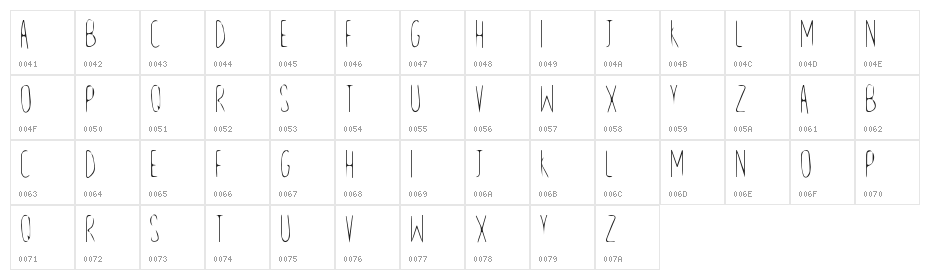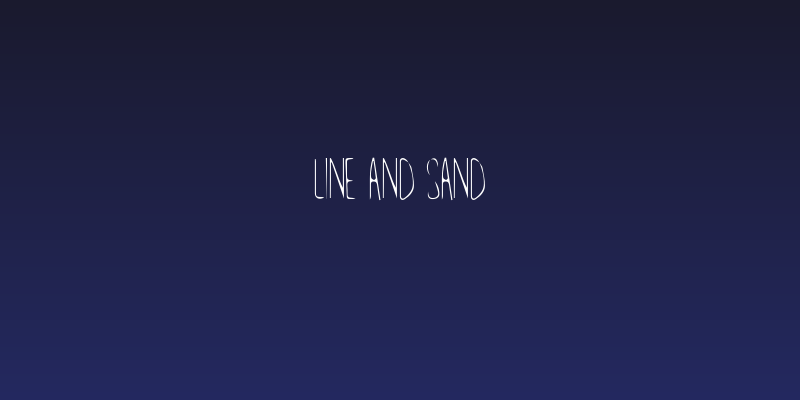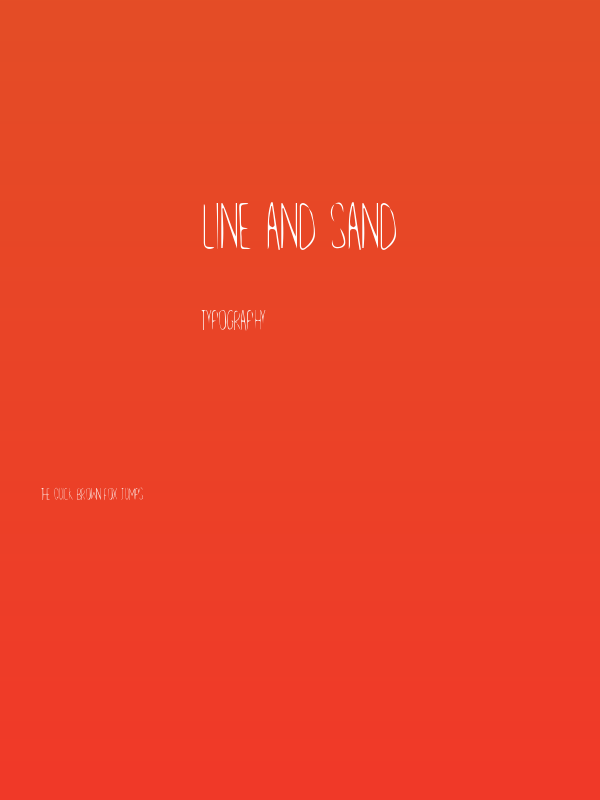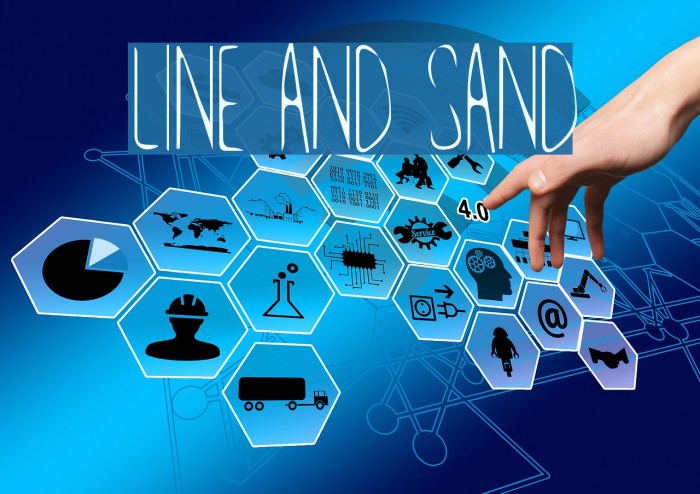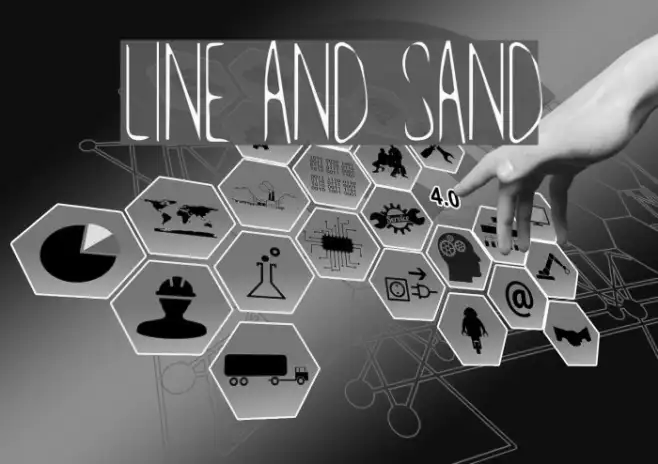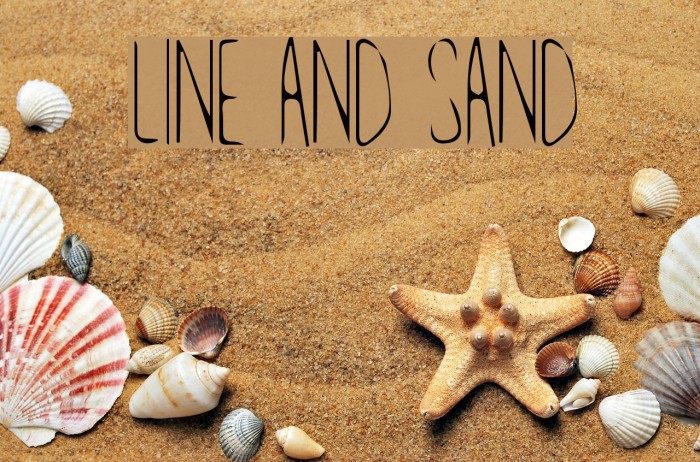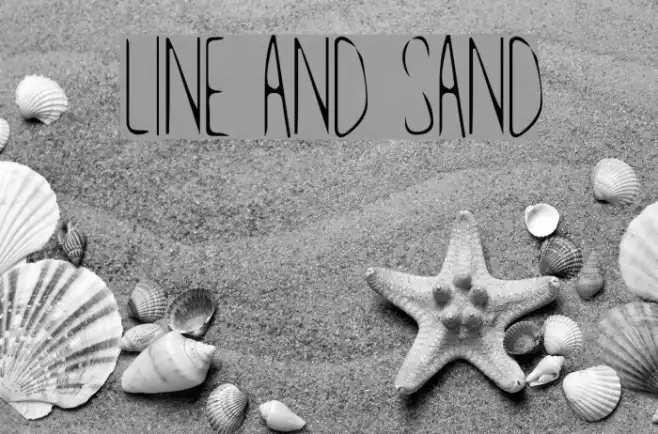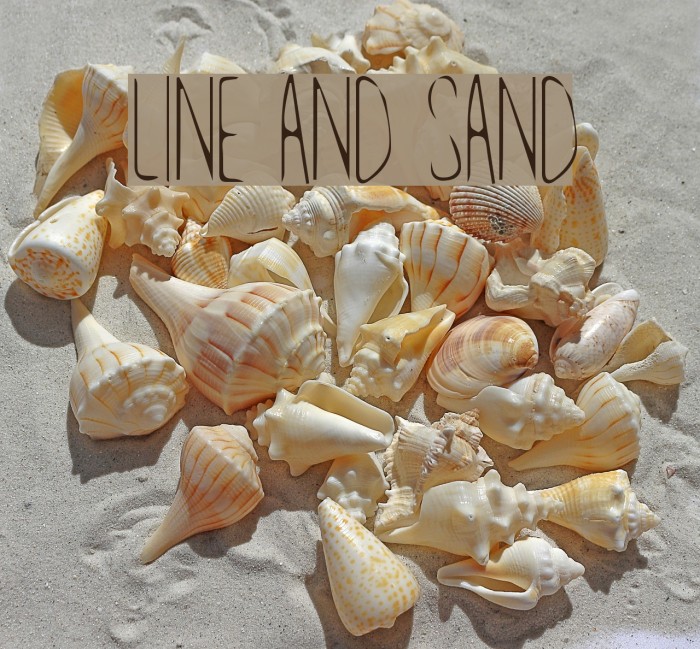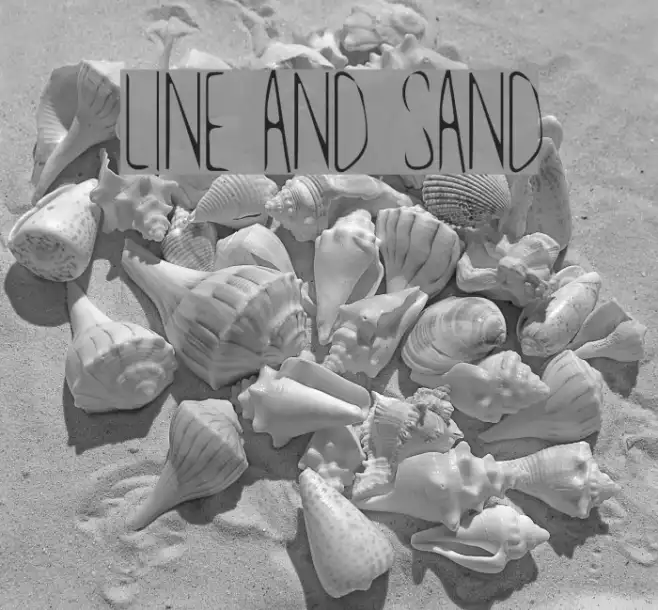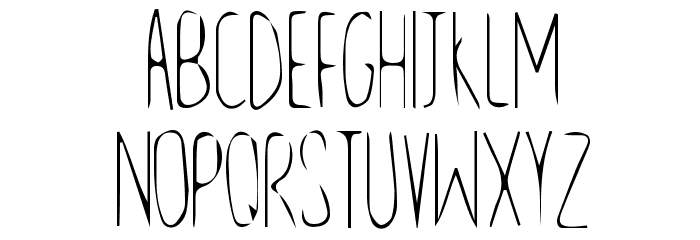
Line and Sand Font
Line and Sand Description
This font features a tall, slender design with elongated characters that convey a sense of elegance and modernity. The strokes are thin and consistent, giving it a refined and sophisticated appearance. The uppercase letters are particularly elongated, while the lowercase letters maintain a similar height, creating a uniform look. The overall style is minimalistic, with a touch of artistic flair, making it suitable for contemporary designs. The font's clean lines and narrow width make it ideal for projects that require a sleek and stylish aesthetic.
| Overall Style | Modern, Elegant |
| Proposed Projects | Ideal for fashion magazines, luxury branding, modern art posters, and minimalist web design. |